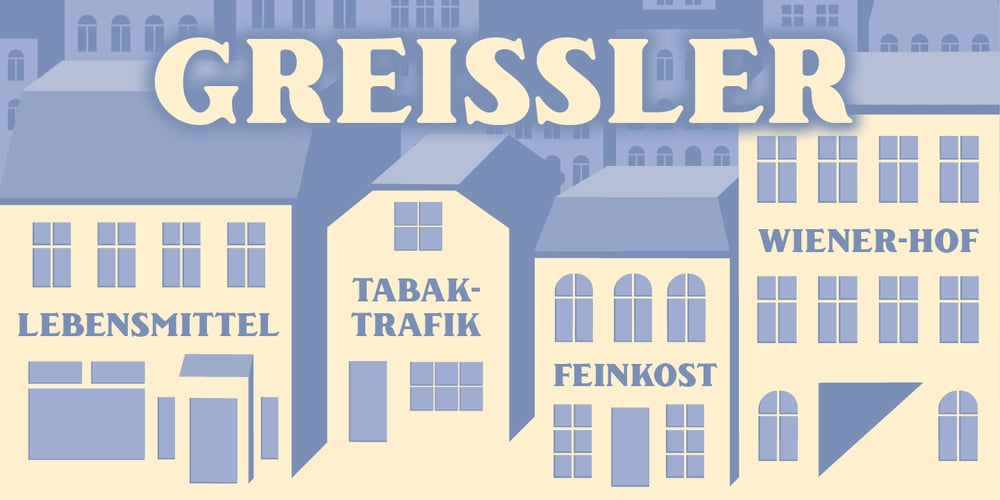
Greissler Font Family was designed by Markus Fetz and published by Markus Fetz. Greissler contains 1 styles and family package options. GREISSLER is a Retro Display Font inspired by old letterings on store fronts and building facades in Vienna. “Greißler” is a term used in the east of Austria and means small grocer. In Vienna you can still see some of the letterings “Lebensmittel”, “Feinkost”, etc. on the storefronts of mostly abandoned shops. Similar letters can be found on “Gemeindebauten” (council housing) from the 1920s.